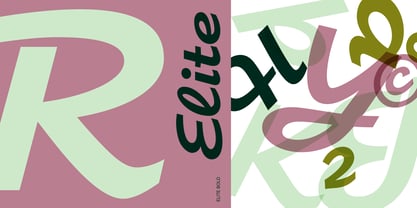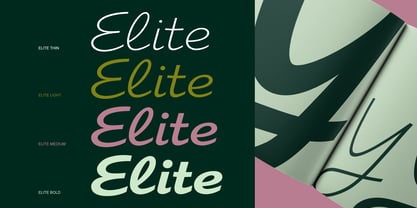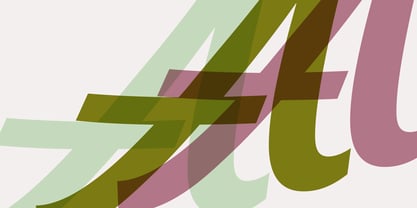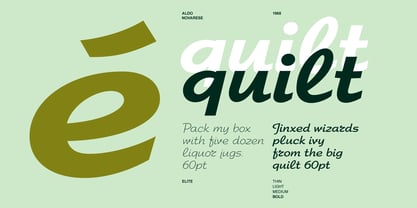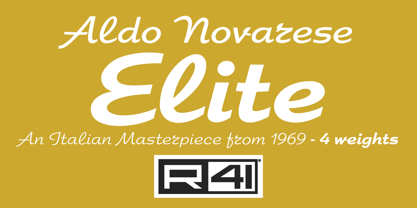
Elite
by Reber R41
The Elite Font Family was designed by Aldo Novarese, Fulvio Bisca, Stefano Torregrossa and published by Reber R41. Elite contains 4 styles and family package options. More about this family
R41 Elite is a script typeface — not derived from a geometric framework but created with tools such as brushes that allow for greater imagination and freedom. Created by Aldo Novarese in 1969 for the Nebiolo Foundry in Turin, it is an elegant typeface that is pleasant to read and easy to use. Although the letters are separate, the optical sensation of calligraphic continuity remains intact. Excessive contrast between thin and thick strokes is avoided to ensure good legibility even in long texts. The design is deliberately simple, so as not to subject the typeface to ephemeral trends. Designed to last, Elite is ideal for all those projects where overly classic and severe typefaces can be replaced by a lively yet sober script (business cards, letterheads, various announcements, invitations, greetings, wedding invitations, covers, title pages, etc.).
Designers: Aldo Novarese, Fulvio Bisca, Stefano Torregrossa
Foundry: Reber R41